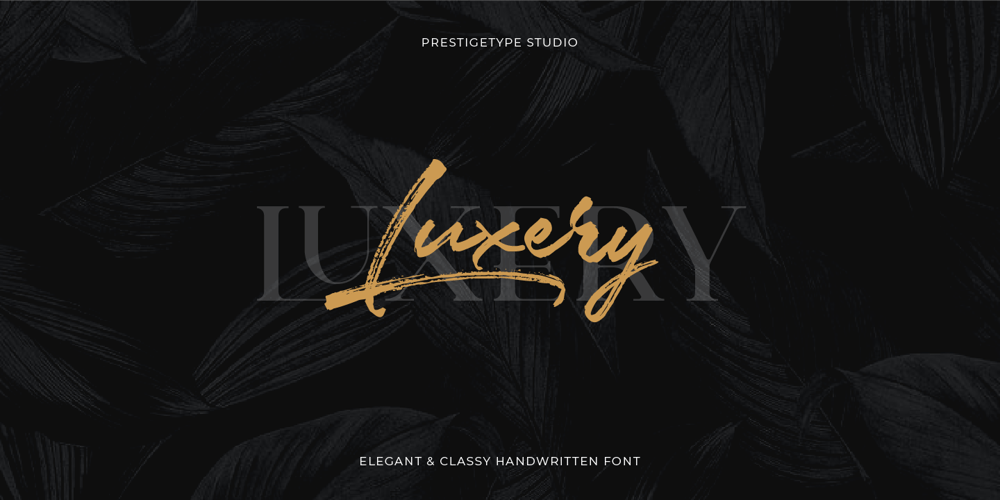
Luxery Font Family was designed by Mohamad Ridwan and published by Prestigetype Studio. Luxery contains 2 styles and family package options. Luxery Font, A classy handwritten font with authenticated character. With natural strokes and a stylish signature style, Luxery is perfect specifically for brand visual identities such as brand’s visual identity, logo, or display materials. This font has made carefully to make sure it’s premium quality.We highly recommend using a program that supports OpenType features and Glyphs panels like many Adobe apps and Corel Draw so you can see and access all Glyph variations.We hope you enjoy our font!